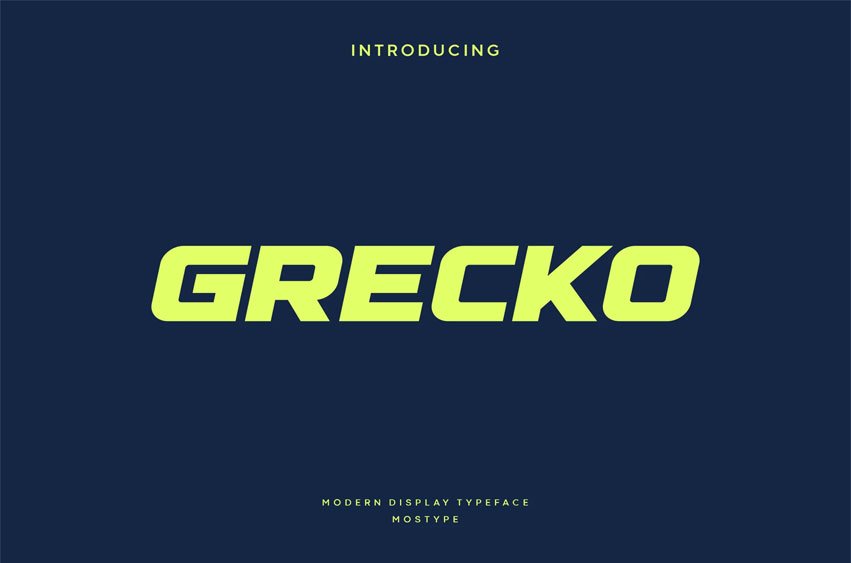
Grecko Font is a visually appealing display sports font characterized by its smooth curves and elegant design, making your work look striking and attractive. This font is versatile and suitable for a wide range of projects, including invitations, logos, branding, magazines, photography, cards, product packaging, mugs, quotes, posters, labels, signatures, and more.